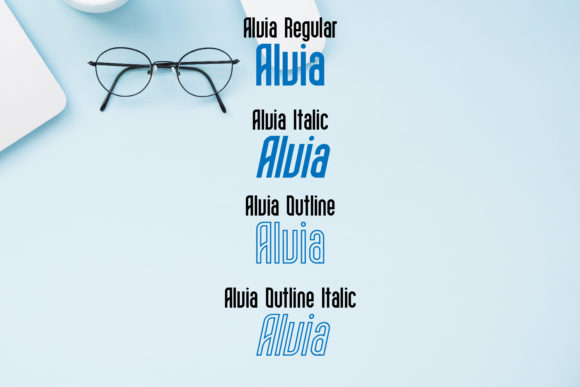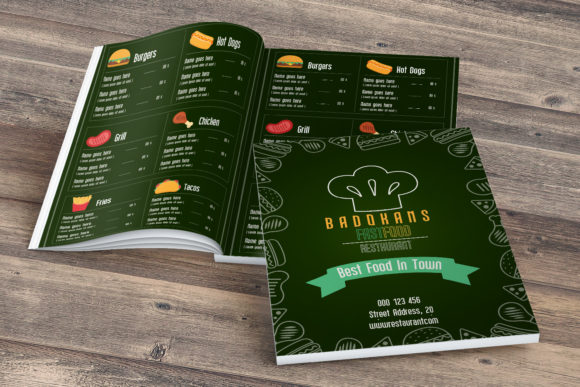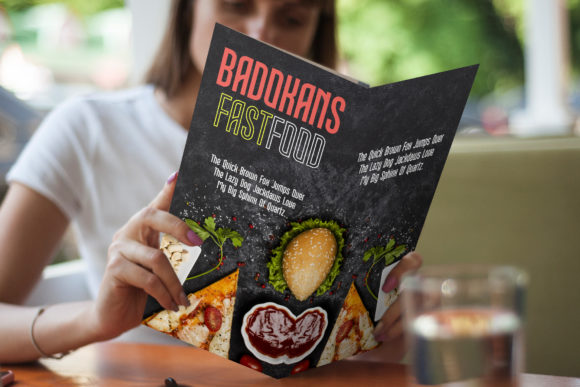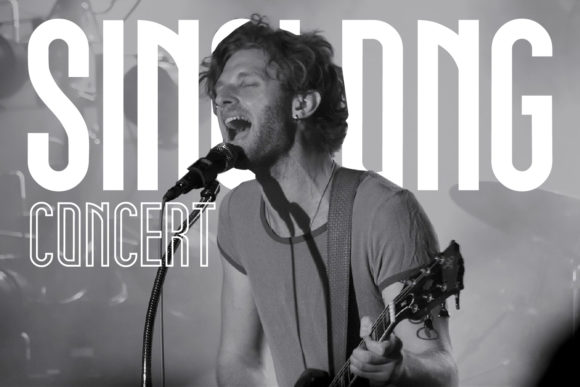
The Perfect Match for Your Next Creative Project
Have you ever stared at a blank page, unsure of where to start your next design project? You’ve got an idea, but the perfect font to bring it to life is still elusive. This is where the magic of typography comes in – and today, we’re excited to introduce you to a game-changer: Alvia Font.
Alvia Font is a minimalist sans serif font that’s as versatile as it is stylish. Its clean lines and neat typography make it the perfect match for a wide range of projects, from digital designs to print materials. Whether you’re a seasoned designer or just starting out, Alvia Font is a valuable addition to your toolkit – and we’re about to show you why.
With its sleek design and endless possibilities, Alvia Font is sure to elevate your creative ideas and take them to the next level. In this article, we’ll dive deeper into the world of Alvia Font and explore its many benefits for designers like you.
Key Features of Alvia Font
- Unique Characteristics: Alvia Font features a modern, elegant design with subtle flair, making it perfect for use in branding, advertising, and editorial content.
- Font Weight: Alvia Font offers multiple font weights, including Light, Regular, Medium, Demi, and Bold, allowing designers to achieve the desired visual impact.
Alvia Font Review
At first glance, Alvia Font seems to be a well-crafted font, suitable for various design projects. Here are some of its strengths:
- ✨ It has a unique, elegant appearance, making it perfect for high-end branding or luxury products.
- ✨ The font is highly legible, even at small sizes, which is a crucial aspect for digital design.
- ✨ Alvia Font supports a wide range of languages, including Latin, Cyrillic, and Greek scripts.
- ⚠️ The font might be too elaborate for simpler designs or projects where readability is not the primary concern.
- ⚠️ The availability of font weights and styles is somewhat limited, which may require designers to rely on third-party solutions.
Overall, Alvia Font is a solid choice for designers looking for a sophisticated, elegant font. While it excels in certain areas, its limitations should be carefully considered before committing to a design project. With some creative workarounds, Alvia Font can be a great addition to any design arsenal.
Tips for Getting the Most Out of Alvia Font
For optimal results, use Alvia Font for headings and titles, and pair it with a clean sans-serif font for body text. Experiment with different font sizes and styles to create visual hierarchy and emphasis.
Alvia Font is ideal for creative and modern designs, such as:
– Digital marketing materials
– Infographics and presentations
– Editorial and publishing designs
Alternatives to Alvia Font
Oswald is a sans-serif font that is highly legible and versatile. It is suitable for body text, headings, and titles. Oswald is a great alternative to Alvia Font as it provides a similar modern and sleek feel, but with a more industrial look.
Comparison: Oswald has a more geometric and mechanical feel compared to Alvia Font’s clean and minimalist design.
Montserrat is a geometric sans-serif font that is highly legible and versatile. It is suitable for body text, headings, and titles. Montserrat is a great alternative to Alvia Font as it provides a similar modern and sleek feel, but with a more urban and edgy look.
Comparison: Montserrat has a more geometric and structured feel compared to Alvia Font’s clean and minimalist design.